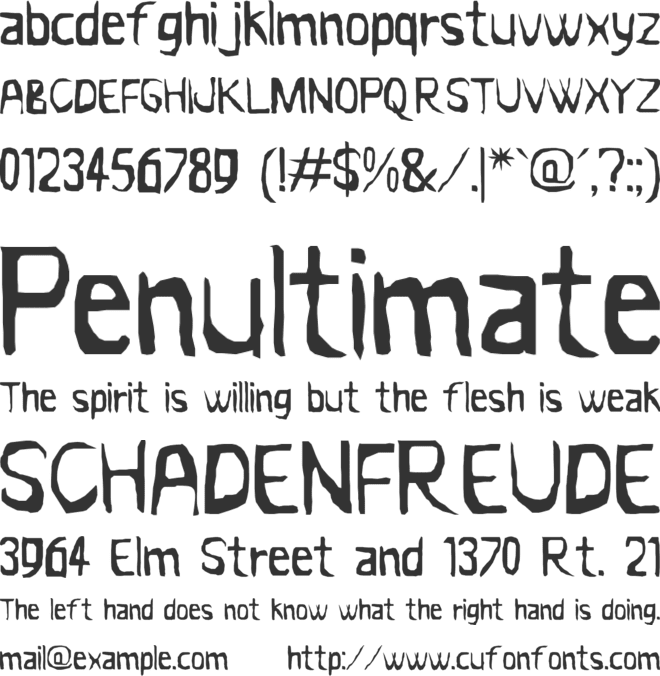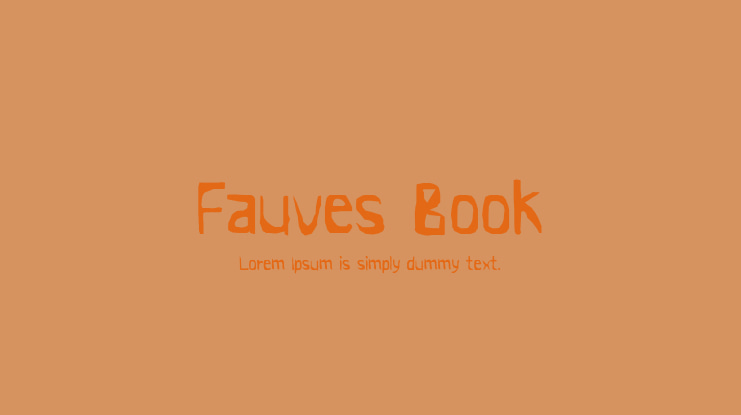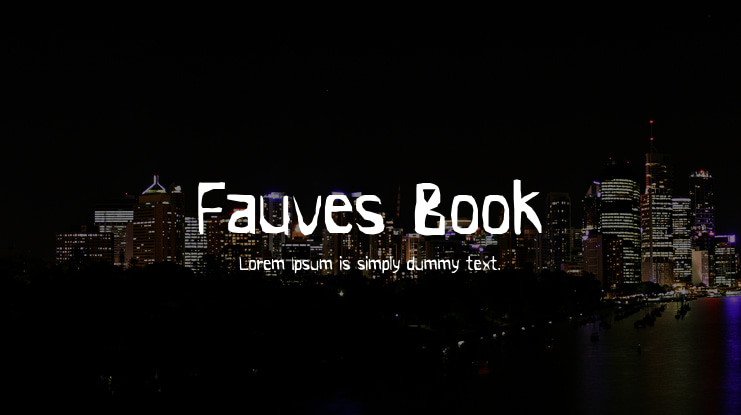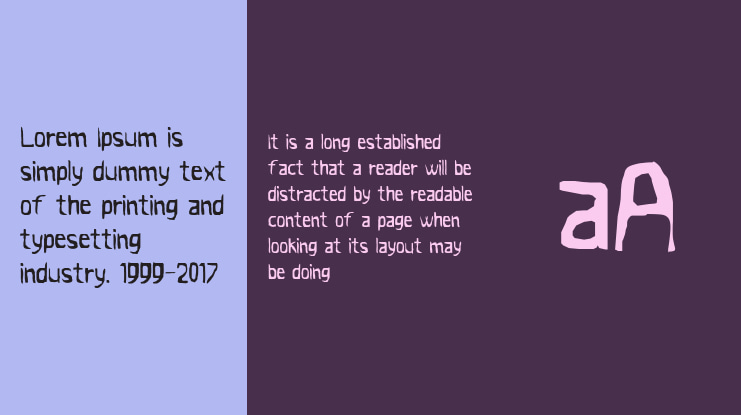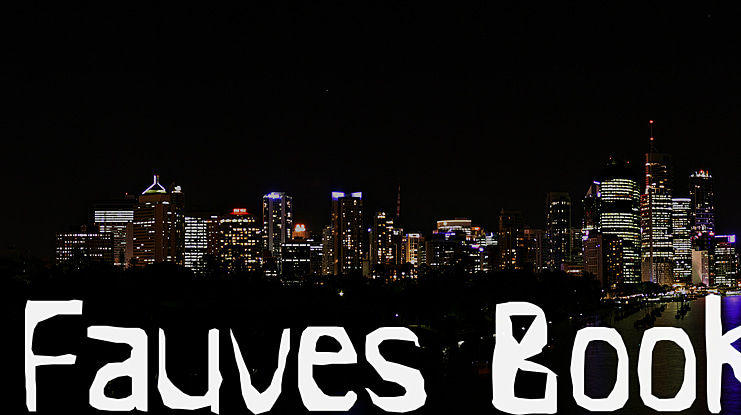
Fauves Book Font Family
From the German expressionist movement, the current French set by Henri Matisse, in an unpublished True Type font in 2 Book and Black-Italic formats.
Dal movimento espressionista tedesco, la corrente francese imposta da Henri Matisse, in un font inedito True Type in 2 formati Book e Black-Italic.